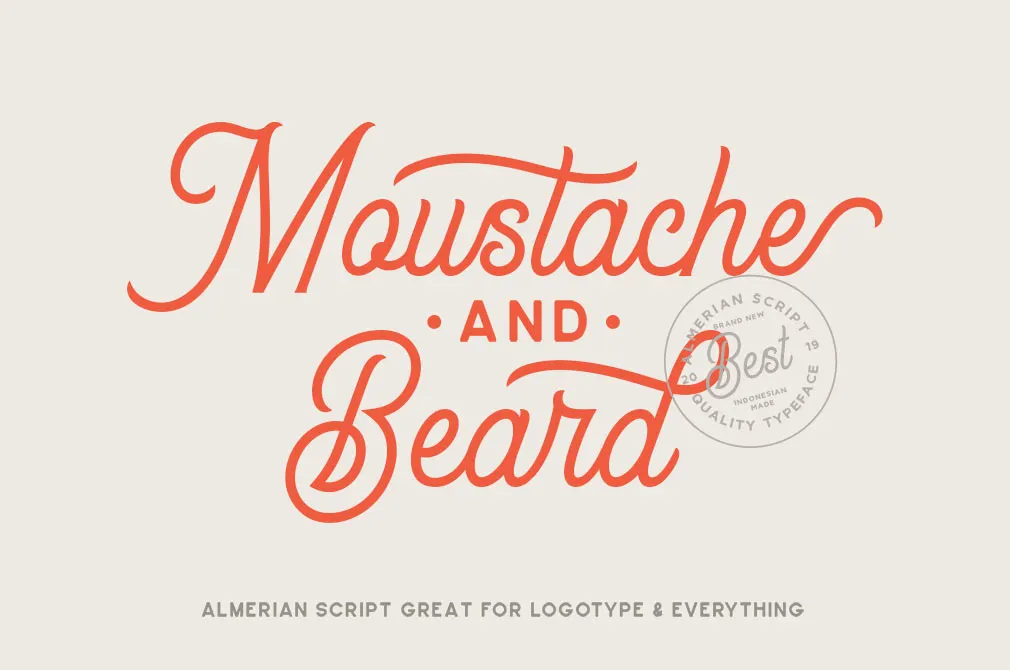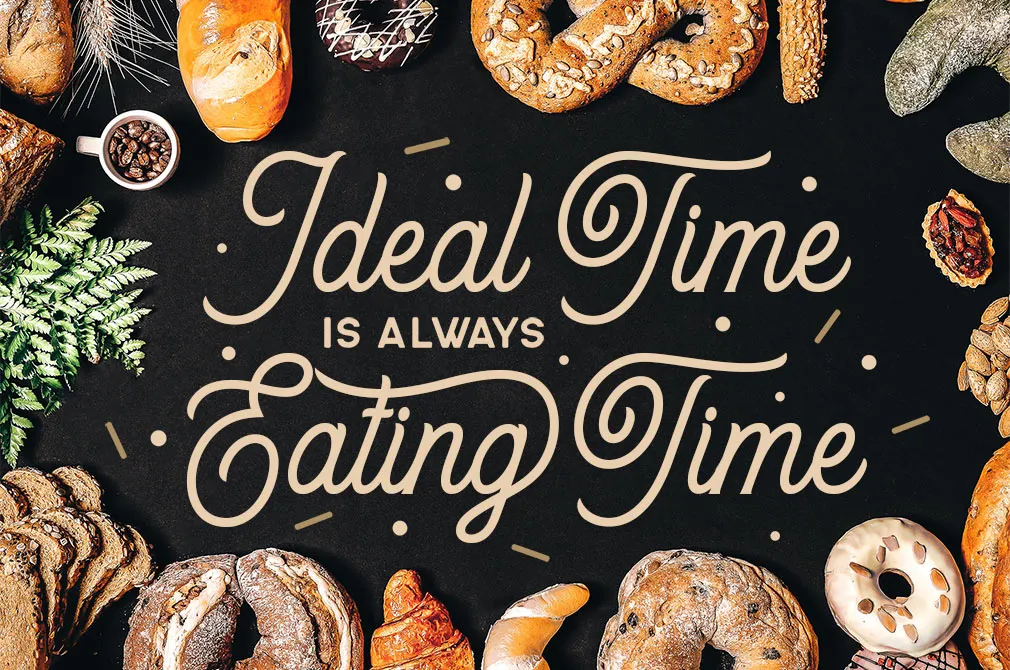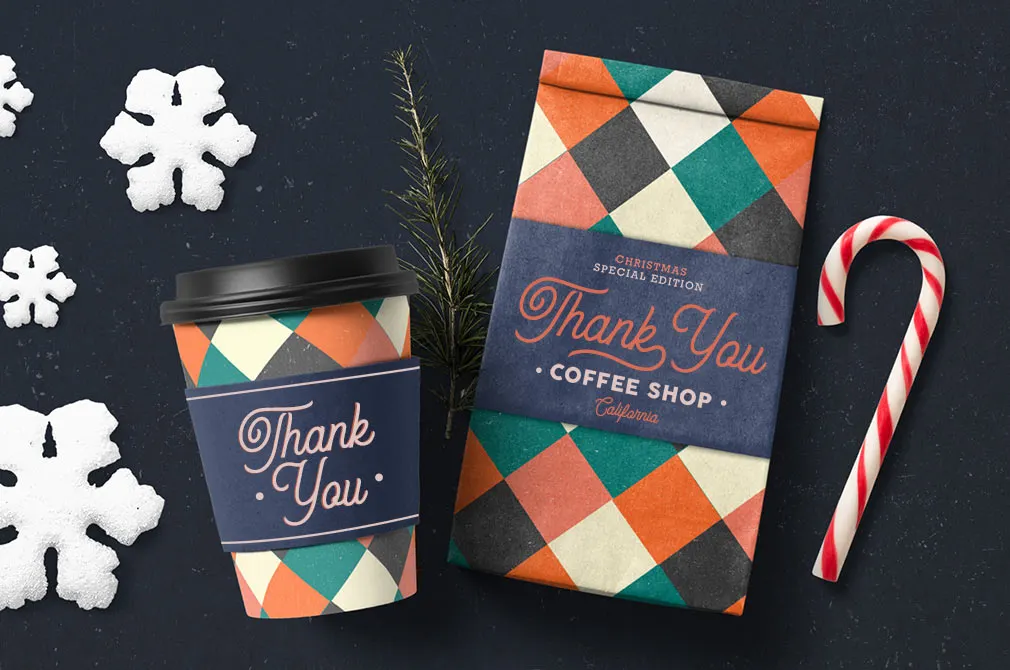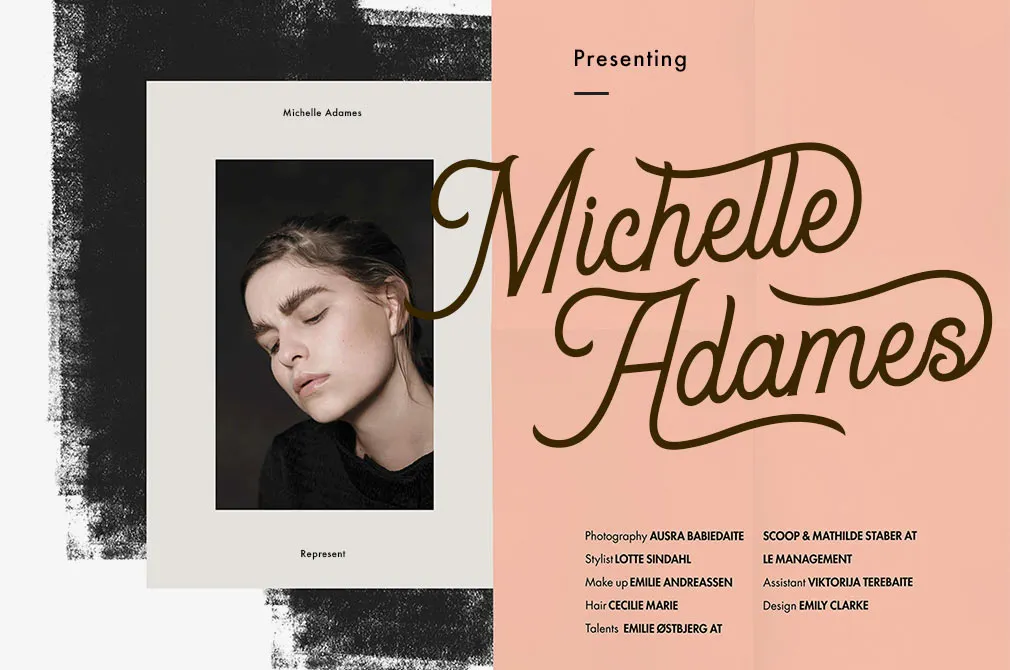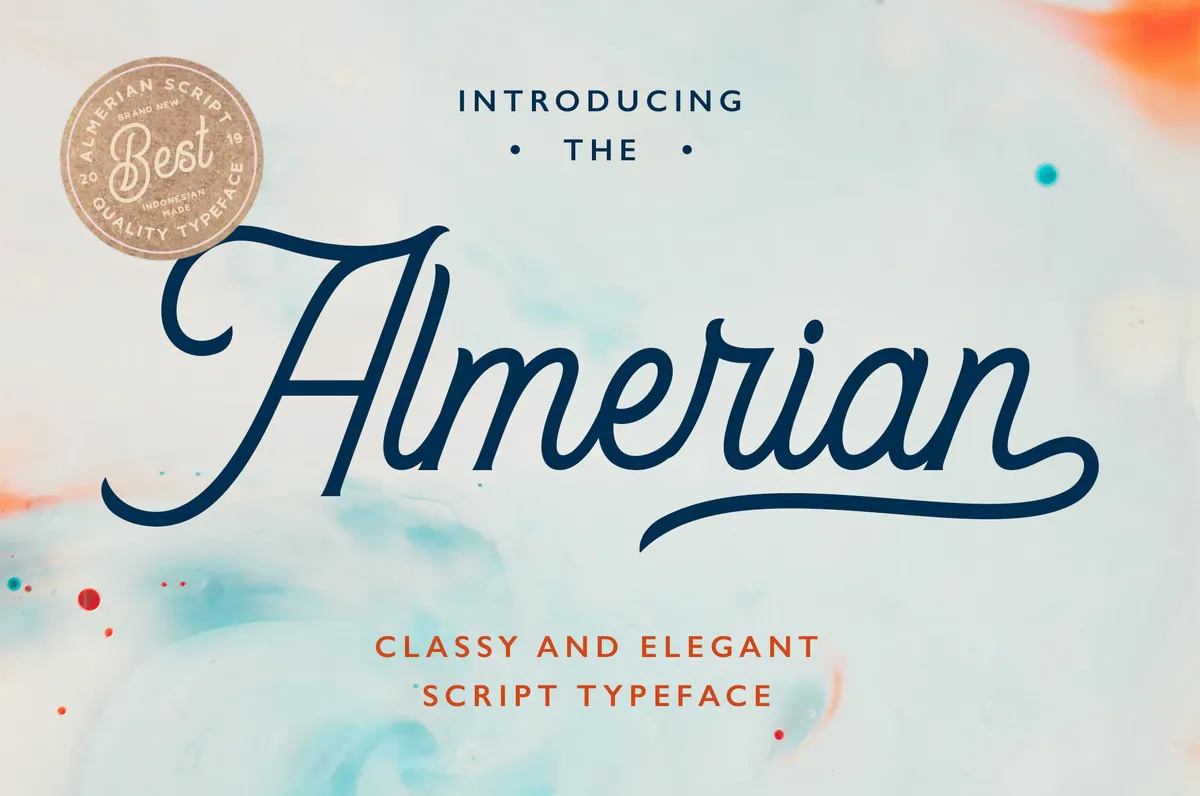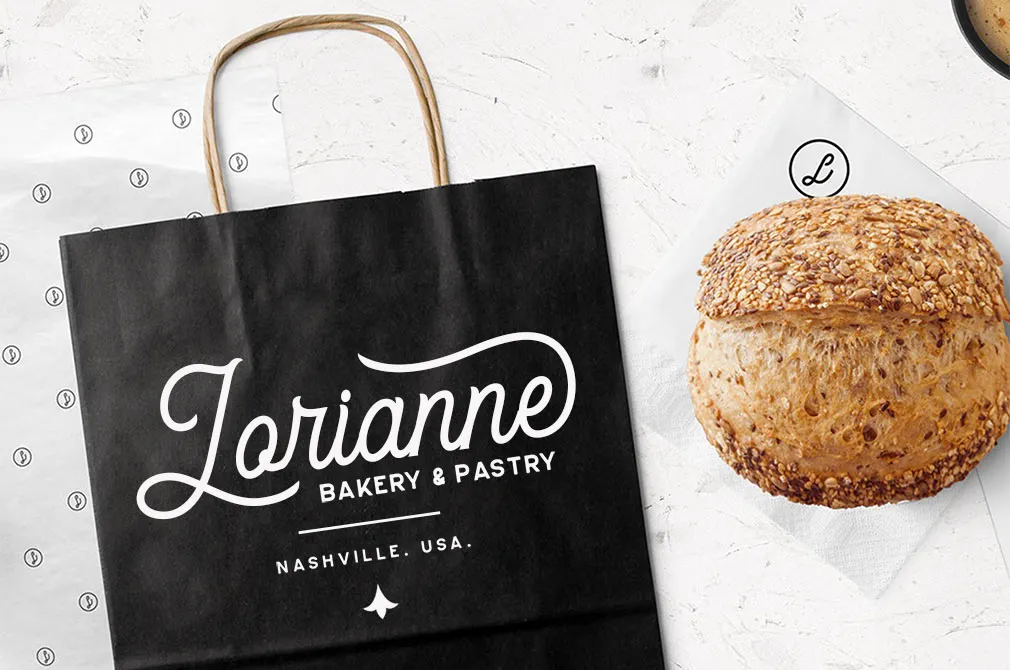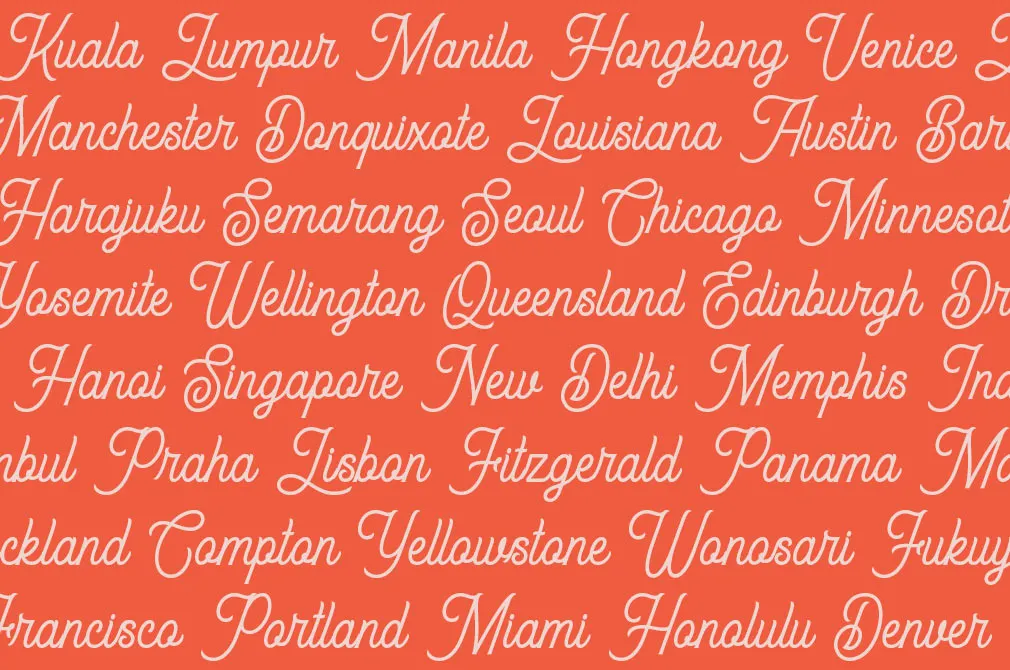
Almerian Script Typeface
Classic taste, handmade-touch, and modern vision set the basis for this script typeface. If you also notice some vintage notes, don't consider them to be random ones, they're included here on purpose!
The beauty and style of the typeface can be discovered fully with OpenType feature and its numerous options to create something unique. Mix and match elements easily with alternative characters to fit your project. Almerian is a great choice for your logos, merch, posters, web design and more!